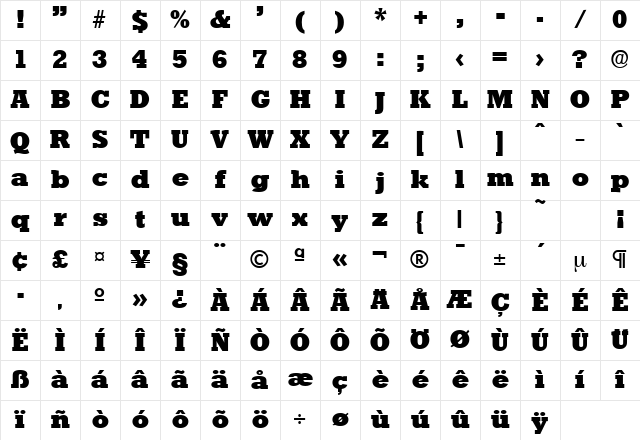
Stafford-Serial-Heavy Regular
Design Context for Stafford-Serial-Heavy
Stafford-Serial-Heavy is a composed and adaptable typeface that performs quietly and consistently across a wide range of design contexts.
Pro Tip: Use Stafford-Serial-Heavy in both headline and body roles to test its range before committing to a single application.